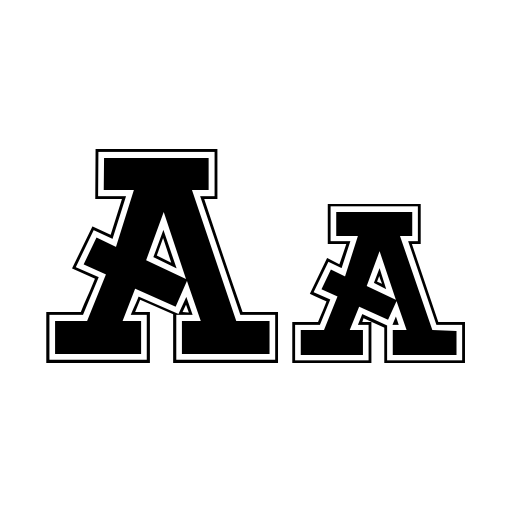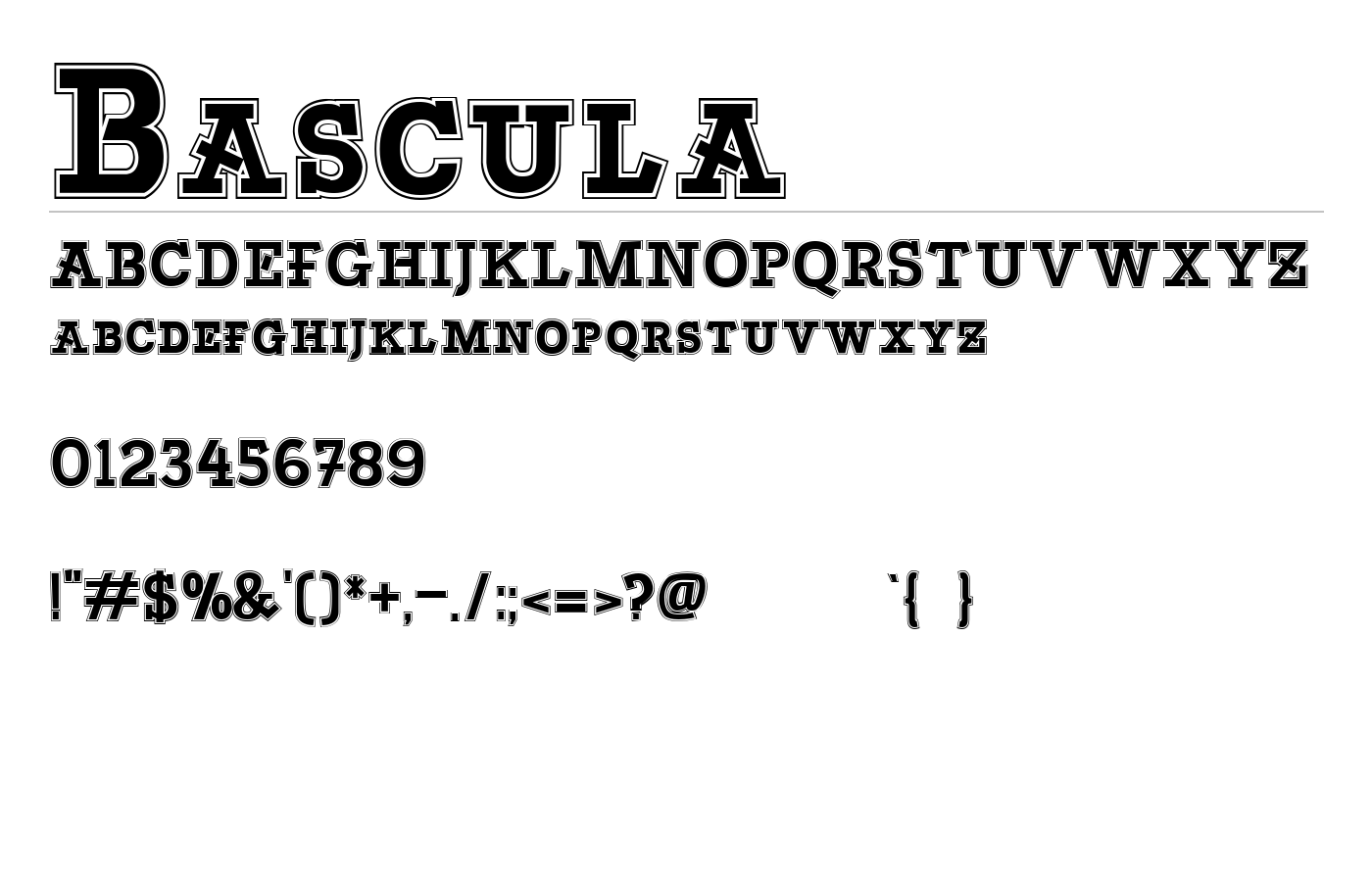
Bascula is a bold slab serif font with a strong, vintage feel characterized by its heavy weight, normal width, and high contrast between thick and thin strokes. Its sharp, blocky serifs and outlined style give it a playful yet commanding presence, making it ideal for eye-catching headlines, logos, and posters where a sturdy, retro aesthetic is desired. This font works especially well in designs that seek to combine a classic Western vibe with modern flair, perfect for branding and packaging that want to stand out with confidence.
Bascula Font
About Bascula Font